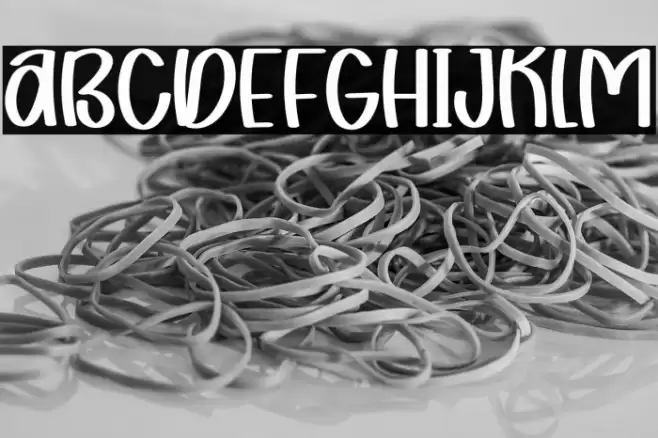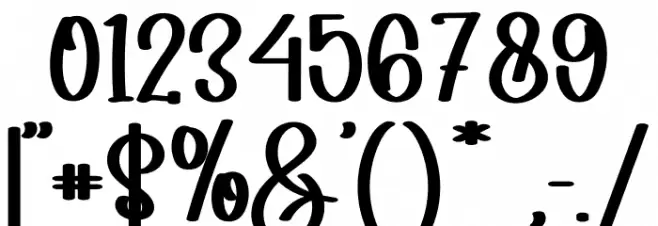
Fishing Journey Font
Fishing Journey Description
This font features a playful and whimsical style with a handwritten appearance. The letters are bold and rounded, with a slight slant that adds a dynamic feel. The uppercase and lowercase characters maintain a consistent style, with unique loops and curves that give it a lively personality. Numbers and special characters are equally expressive, making them suitable for creative and informal designs. The overall look is friendly and approachable, perfect for projects that aim to convey warmth and creativity.
A playful, bold, and handwritten-style font with rounded, dynamic characters from Uncategorized fonts.
- Font: Fishing Journey
- Proposed Projects: Ideal for children's books, greeting cards, playful branding, and creative posters.
- Overall Style: Playful